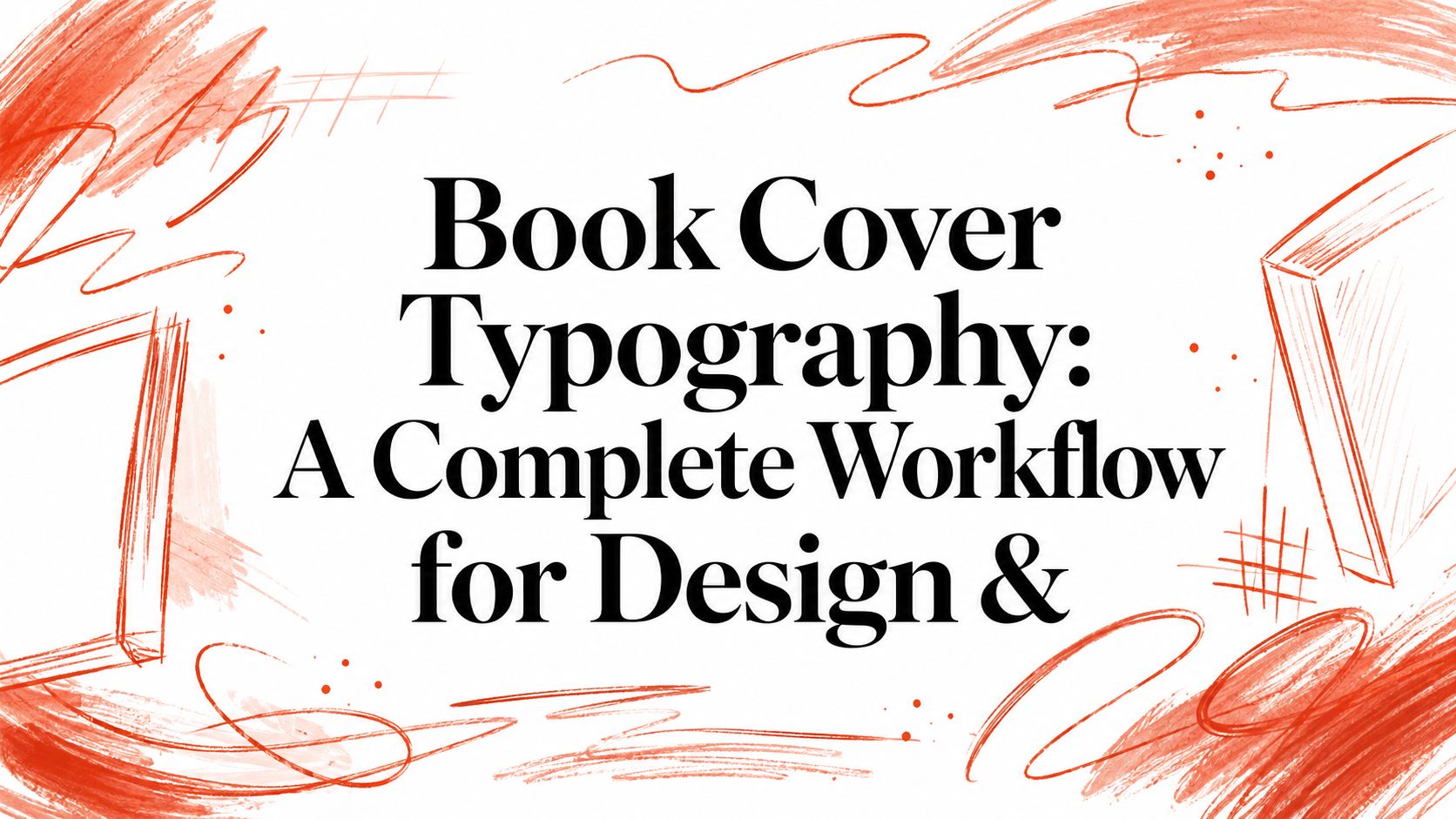
You've got the cover mostly done. The art direction feels right, the type looks elegant on a large monitor, and then the first thumbnail proof lands in a marketplace grid and the title turns into texture. That's the moment most book cover typography problems stop being aesthetic and start becoming operational, because the reader doesn't judge your file, they judge the tiny image that has to identify the book in a crowded feed.
The fix isn't more decoration. It's a workflow that treats typography as an identification system first, then a style choice. That starts with print history, hierarchy, legibility, licensing, and distribution, not with a font menu.
Why Most Book Covers Fail at Thumbnail Size
The failure usually shows up fast. A cover looks balanced at full resolution, then it gets compressed into a search grid and the title turns into texture, the author name drops out, and the whole design reads like a dark block with noise in it. That is an operational problem, because readers do not judge the layered file. They judge the tiny image that has to identify the book in a crowded feed.
That problem has deep roots in print history. Book cover typography began as identification work, not decoration, and the historical record backs that up. The first known practice of putting a book's title, author name, printer, and printing date on a cover is traced to 1470 in Cologne, with the first title page usually dated to 1463 and the first full title page to 1476 (historical overview). Early printed books were still visually sparse by later standards, with about one-third of incunabula books illustrated, which meant text had to carry much of the communication on its own (Britannica on the maturation of the printed book). That's also why the ultimate book cover design guide and similar practical references keep coming back to hierarchy and clarity instead of surface effects.
Practical rule: if the title cannot win at a small size, the large mockup does not matter.
Start with the store, not the mockup
A cover has to survive the conditions where readers first meet it. That usually means a tiny tile, a crowded grid, and a fast visual scan. The thumbnail check belongs at the beginning of the process, not the end.
The fastest way to catch a bad cover is to reduce it early and inspect it in the same context where readers will see it. A strong guide to cover legibility makes this point clear in its readability scoring formulas and metrics guide, because the problem is rarely the art direction alone. It is the gap between a full-size comp and a compressed retail image.
Thin strokes, busy textures, and delicate spacing tricks tend to fail first. A title that still reads instantly when reduced has a chance. If it does not, no amount of polish will rescue the first impression.
Locking the Hierarchy Before Choosing Fonts
The cleanest covers are usually the ones where the order of information was decided before any font was chosen. Title first. Author second. Subtitle third. Endorsements and series markers only after the core reading path is stable. That hierarchy matters more than stylistic flair, because visual weight determines what a reader notices in a split second.
Build the reading order first
A good hierarchy is not the same thing as bigger text everywhere. It means the title dominates, the author supports, and secondary copy steps back. On covers with too many competing elements, I've seen a simple re-order fix the entire design without changing a single font. The same typeface can feel authoritative in one layout and chaotic in another, depending on where it sits and how much space it gets.
The safest production habit is to limit the system to no more than two to three font families on the cover. More than that, and clutter usually wins. The moment you start mixing multiple display faces, scripts, and decorative accents, the title stops acting like a signpost and starts acting like one more graphic element.
The title should be the first thing the eye finds, not the last thing it deciphers.
Decide the dominant face, then the support face
I start by choosing one dominant title face that matches the book's tone, then I pair it with a simpler supporting face for the author or subtitle. The title gets the largest size and the strongest contrast. The supporting font exists to clarify, not compete.
That's also where genre literacy matters. A genre signal that's too literal can feel stale, but a type choice that ignores reader expectations can make a book harder to place. There's real value in studying category conventions before breaking them. The strongest deviation is usually the one that still respects hierarchy and readability, which is why I'd rather see a cover bend genre patterns than shatter legibility.
For designers building a repeatable system, a brand-guidelines workflow for typography helps keep the hierarchy consistent across series and imprints. That consistency is what readers remember, not just the individual font name.
Choosing and Pairing Typefaces for Genre and Contrast
Font selection works best when contrast does the heavy lifting. High contrast between text and background is one of the most reliable readability controls on a cover, especially when the design is viewed on a phone, in a storefront grid, or in a compressed ad asset. Once contrast is strong enough, the type choice can focus on tone instead of rescue work.